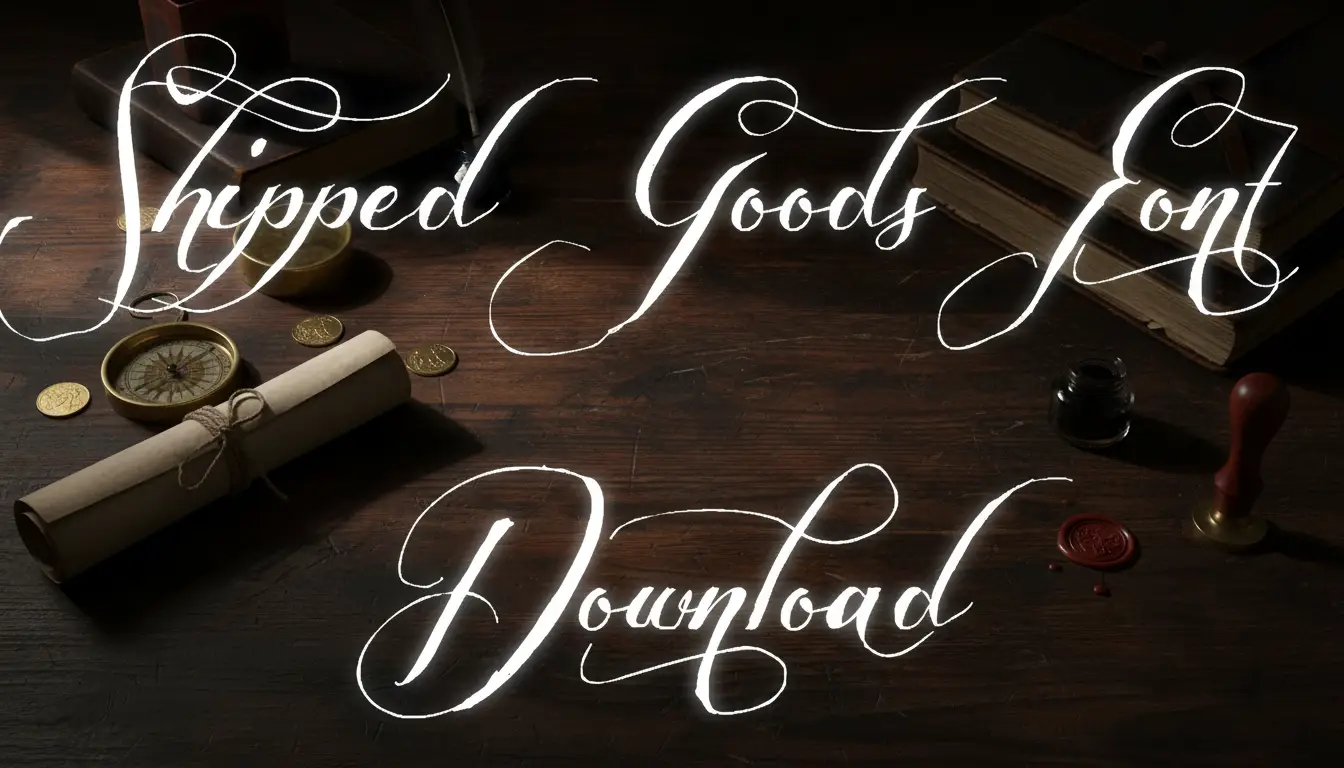
Shipped Goods Font
Shipped Goods is a handwritten font made by Måns Grebäck. The letters have the small wobbles and personality of real handwriting, so your text feels warm instead of printed. It's a free download, and you can try it with your own text in the preview above first.
With complete upper and lowercase letters and all ten digits, Shipped Goods is ready for real wording, not just a single headline. Common punctuation such as &, !, ? and @ is included as well. It also has the accented letters you need for Spanish, French, German, Portuguese and Italian.
Shipped Goods is a natural fit for greeting cards, journal pages and friendly social posts. Set it a bit larger than you would a normal text font. Handwriting styles lose their charm once they get too small to read comfortably.
Yes. Shipped Goods includes the accented letters needed for Spanish, French, German, Portuguese and Italian, so it works for more than just English.